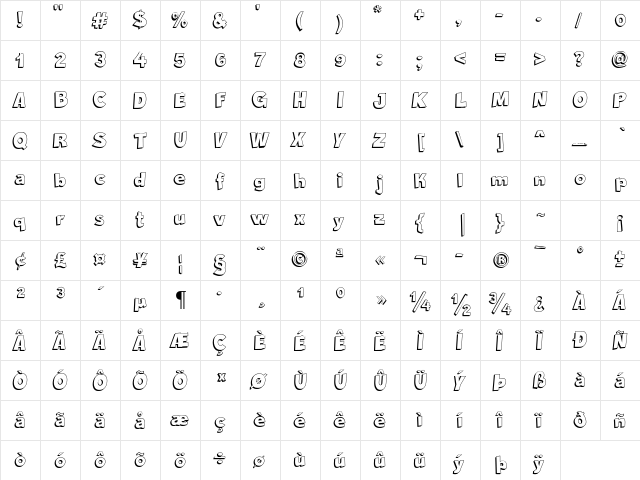
Crazy Krabs Shadow Regular
Design Context for Crazy Krabs Shadow Typeface
Crazy Krabs Shadow brings ornamental detail and strong personality to headlines and identities, where visual impact matters more than quiet functionality.
Font Pairing: Pair with a clean neutral sans-serif for body copy to let Crazy Krabs Shadow's character lead without overwhelming the composition.
Pro Tip: Use Crazy Krabs Shadow exclusively at display sizes — it was designed to be seen, not read at length. Let a neutral companion handle body copy.